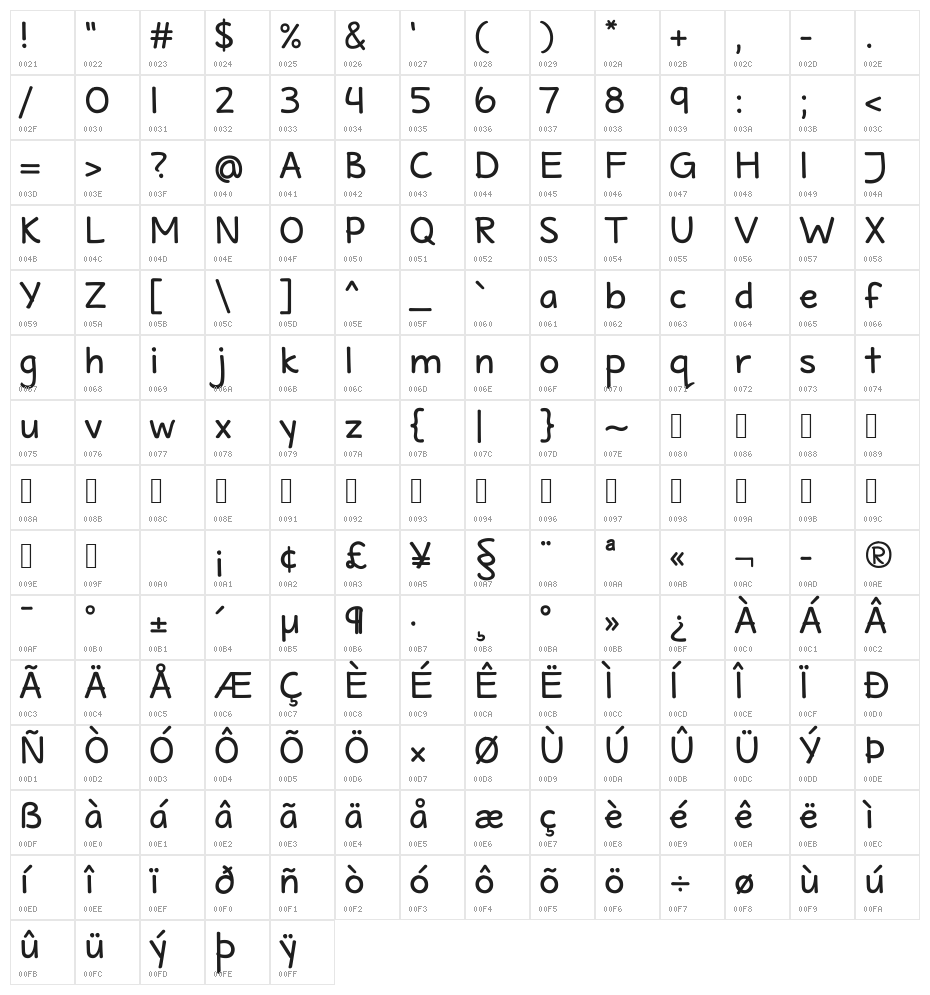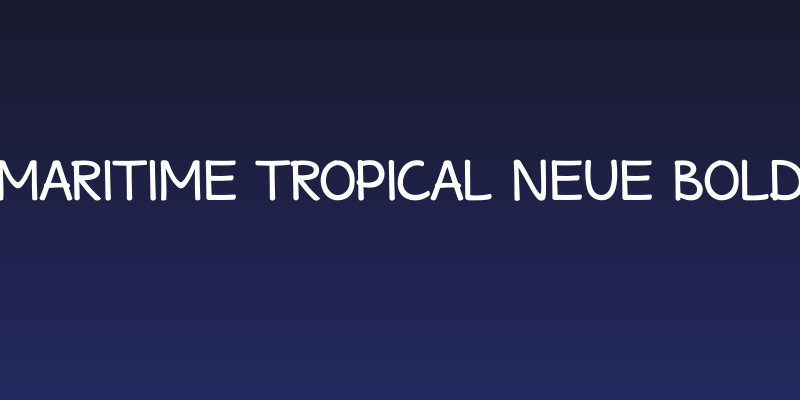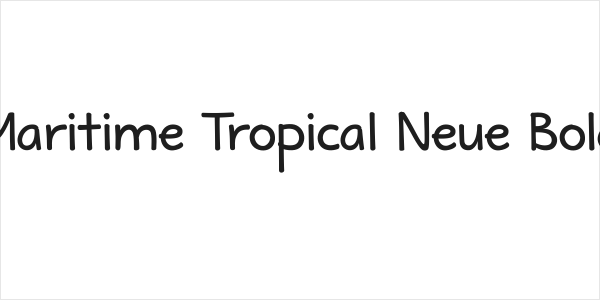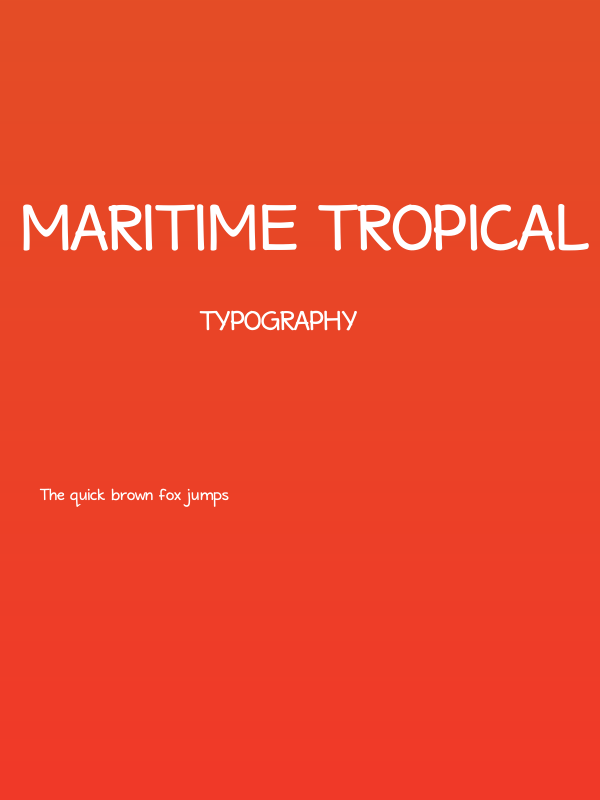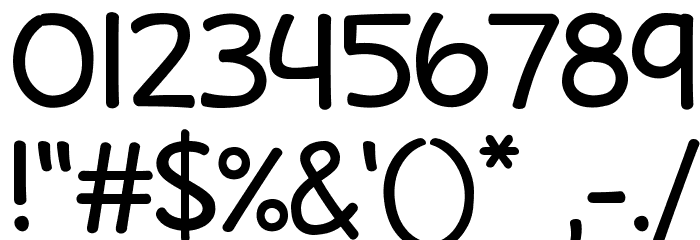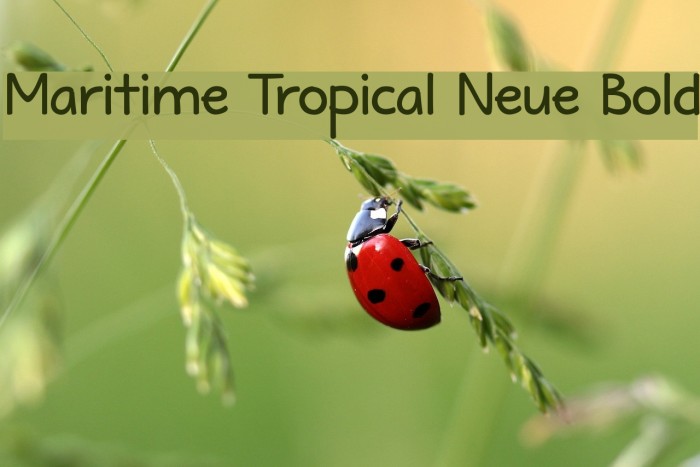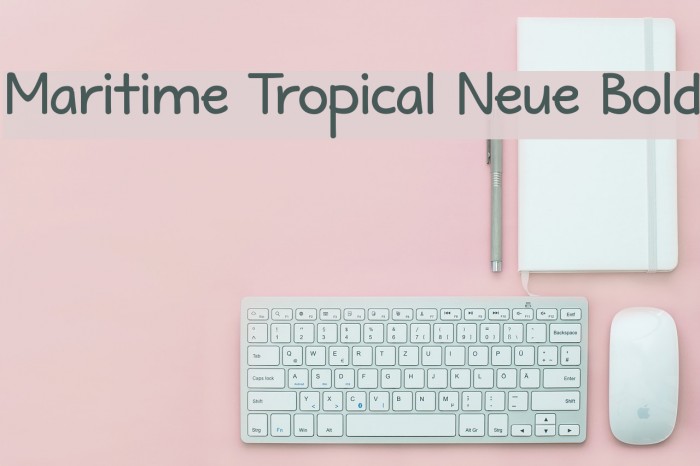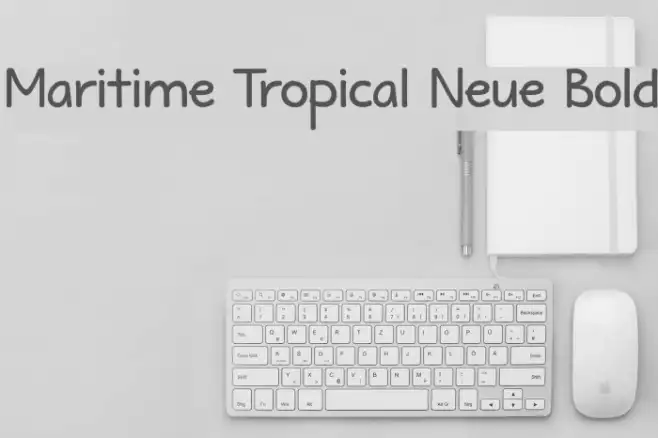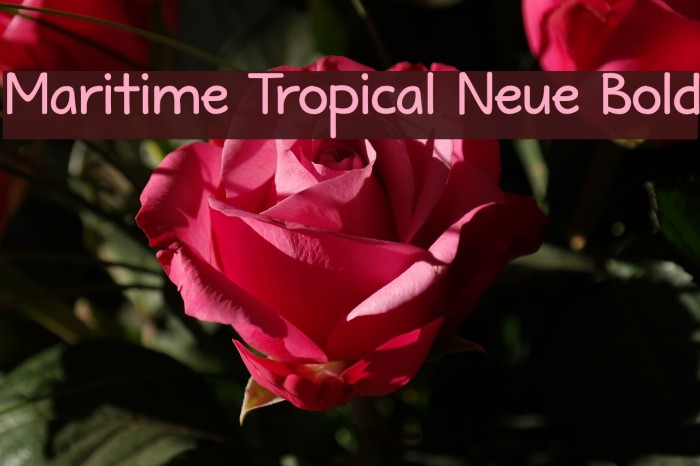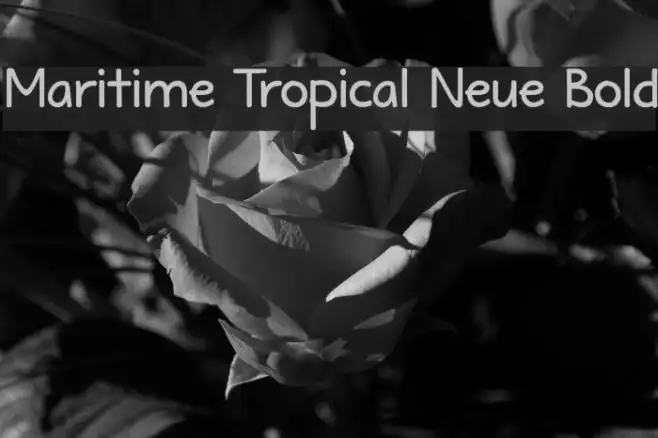
Maritime Tropical Neue Bold Font
Maritime Tropical Neue Bold Description
This font features a playful and rounded style, characterized by its smooth curves and uniform stroke width. The uppercase and lowercase letters maintain a consistent height, contributing to a balanced and cohesive appearance. The numerals and special characters are designed with the same rounded aesthetic, ensuring a harmonious look across all elements. The font's bold weight enhances its visibility and impact, making it suitable for various design applications. Its friendly and approachable style is ideal for projects that require a touch of warmth and personality.
| Overall Style | Playful |
| Proposed Projects | Ideal for children's books, playful branding, casual invitations, and social media graphics. |